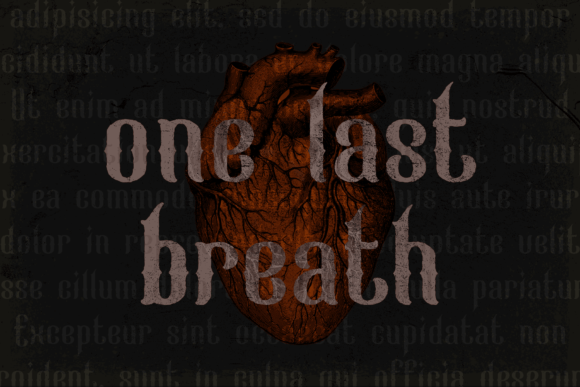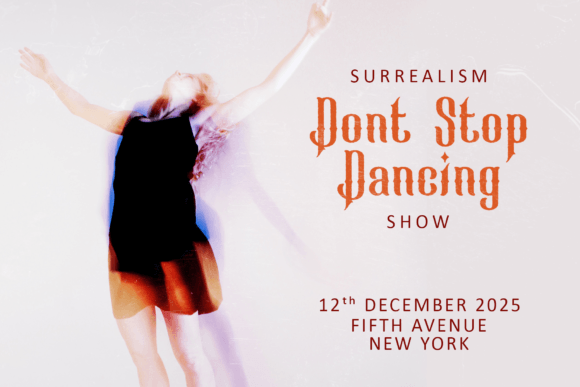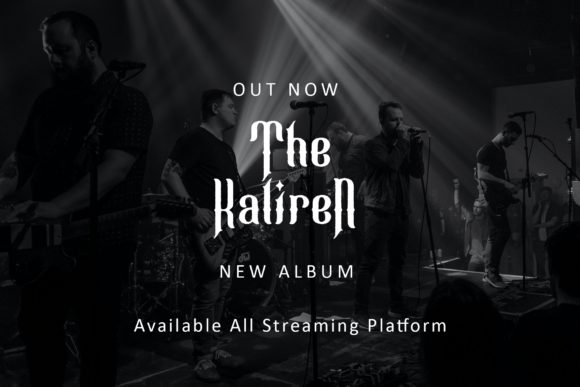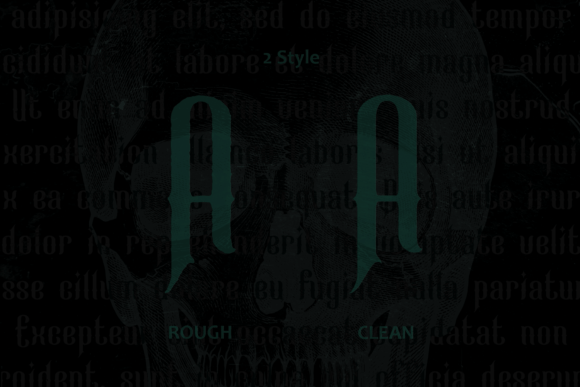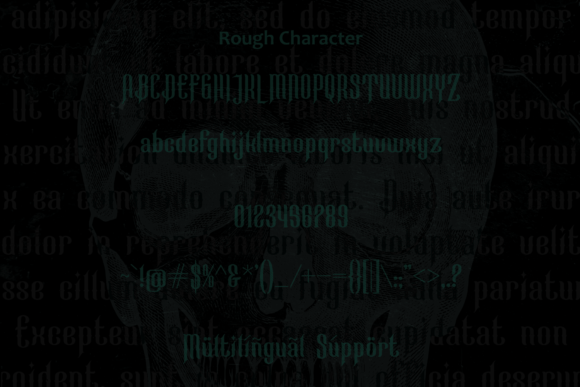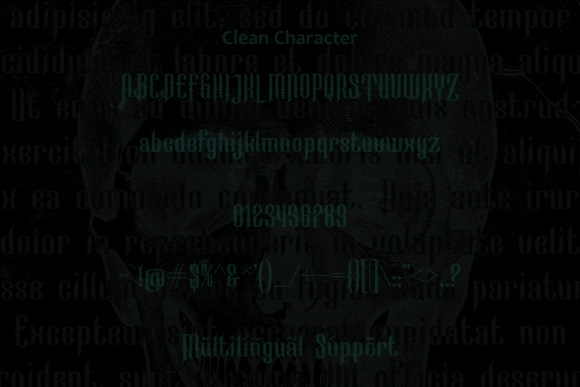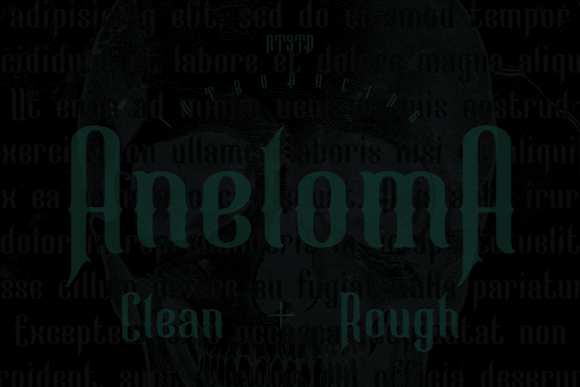
Introducing Aneloma Font: The Perfect Blackletter Typeface for Your Design Projects
Are you a designer or crafter looking for a unique and stylish font to elevate your projects? Look no further than Aneloma Font, a beautiful blackletter typeface that’s perfect for a wide range of applications. In this article, we’ll take a closer look at Aneloma Font, its features, and how you can use it to take your designs to the next level.
What is Aneloma Font?
Aneloma Font is a neat blackletter font that’s designed to be versatile and easy to use. Its sleek and elegant design makes it perfect for use in paragraph sentences and headlines, while its unique character set ensures that your text stands out from the crowd. Whether you’re working on a branding project, creating social media graphics, or designing print materials, Aneloma Font is the perfect choice.
Key Features of Aneloma Font
So, what makes Aneloma Font so special? Here are just a few of its key features:
• Unique Blackletter Design: Aneloma Font features a unique blackletter design that’s both elegant and eye-catching. Its sleek lines and intricate details make it perfect for use in a wide range of design projects.
• Versatile: Aneloma Font is designed to be versatile, making it perfect for use in paragraph sentences, headlines, and more.
• Easy to Use: Despite its intricate design, Aneloma Font is easy to use and works seamlessly with most design software.
How to Use Aneloma Font in Your Design Projects
Aneloma Font is perfect for a wide range of design projects, including:
• Branding: Use Aneloma Font to create unique and memorable brand identities that stand out from the crowd.
• Social Media Graphics: Add a touch of elegance to your social media graphics with Aneloma Font.
• Print Materials: Use Aneloma Font to create stunning print materials, including posters, magazines, and more.
• Fashion: Aneloma Font is perfect for use in fashion design, including clothing labels, fashion magazines, and more.
Tips for Getting the Most Out of Aneloma Font
Here are a few tips for getting the most out of Aneloma Font:
• Experiment with Different Sizes: Aneloma Font looks great in a wide range of sizes, so don’t be afraid to experiment and find the perfect size for your project.
• Pair with Other Fonts: Aneloma Font pairs well with a wide range of other fonts, so try pairing it with different fonts to create a unique look.
• Use in Combination with Images: Aneloma Font looks great when used in combination with images, so try using it to add text to your images.